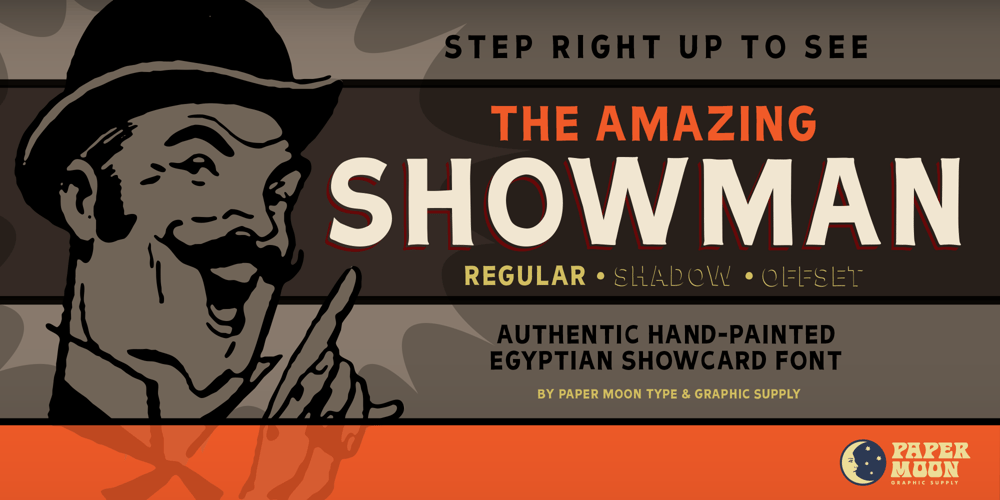
PM Showman
PM Showman font
PM Showman Font Family was designed by Scott Banks and published by Paper Moon Type & Graphic Supply. PM Showman contains 3 styles and family package options. PM Showman is based on vintage hand-painted sign writing from the 1900s through the 1960s. Seen on everything from office signs to posters, it was a staple of business communication and entertainment advertising in the early 20th century. We meticulously hand-drew each font, modeling the spacing and quirkiness of the original letterforms to give PM Showman an authentic hand-painted look.